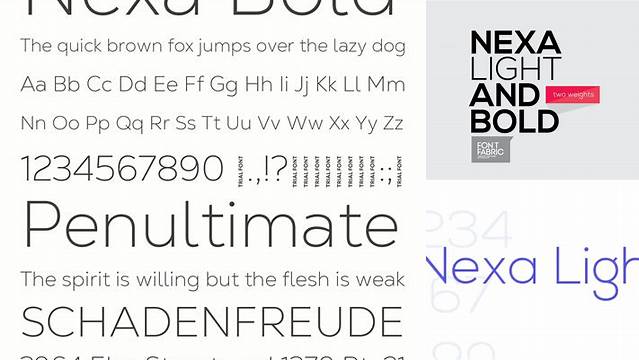
Hey guys! Are you on the hunt for a versatile and modern font to spice up your design projects? Look no further! The Nexa font family, with its clean lines and geometric design, is a fantastic choice for everything from logos and headlines to body text. And the best part? You can find Nexa Light and Bold font free download options online. Let's dive into why this font is so awesome and where you can snag it without breaking the bank.
Nexa Font Family: A Quick Overview
The Nexa font family is a geometric sans-serif typeface known for its readability and contemporary feel. It comes in a variety of weights, from the delicate Light to the impactful Bold (and even Extra Bold!), giving you plenty of flexibility for your designs. The clean and minimalist style makes it perfect for a wide range of applications, whether you're working on a website, a brochure, or even a mobile app. With its versatility and modern aesthetic, it's no wonder that Nexa Light and Bold font free download is a popular search term among designers and creatives.
Why Choose Nexa Font?
Before we jump into where to download, let's talk about why you should consider Nexa.
- Versatility: This font works well in a variety of contexts, from headings to body text.
- Readability: Nexa's clean design ensures that your text is easy to read, even at smaller sizes.
- Modern Look: If you're going for a contemporary vibe, Nexa is a great choice.
- Multiple Weights: With various weights available (including Light and Bold, of course!), you can create visual hierarchy and add emphasis to your designs. The Nexa Light and Bold font free download options give you a starting point, but exploring the full family can unlock even more possibilities.
Nexa Light Font: Characteristics and Uses
Let's kick things off by diving deeper into the Nexa Light font. This particular weight is known for its delicate and airy appearance, making it a fantastic option for projects where you want to convey a sense of elegance and sophistication. When we talk about Nexa Light font free download, we're often referring to a version that's ideal for lighter applications, think branding projects or websites that want a minimalist feel. It is a great choice for body text in designs where you want to avoid a heavy or cluttered look. Imagine using Nexa Light for the text on a clean, modern website – it would blend seamlessly with the design while remaining easy to read. You might also see it used in invitations, brochures, or even logos for businesses that want to project a refined image. Furthermore, the Nexa Light weight is excellent for adding contrast when paired with bolder fonts within the same family, like Nexa Bold. This contrast helps create visual hierarchy and draws the reader's eye to important information. When searching for a Nexa Light font free download, make sure to check the license to ensure it fits your project’s needs, whether it’s for personal or commercial use. Using Nexa Light effectively can elevate your design projects, adding a touch of modern sophistication without overwhelming the overall aesthetic. Remember, a clean and legible font is key to communicating your message effectively, and Nexa Light excels in this regard. It's no wonder designers often seek a Nexa Light font free download option to incorporate this versatile typeface into their toolkit.
Nexa Bold Font: Impact and Applications
On the flip side, we have the Nexa Bold font, which is all about making a statement. This weight commands attention and is perfect for headlines, titles, and any other text you want to stand out. When you need to convey strength, confidence, or simply draw the reader’s eye, Nexa Bold is your go-to. The search for a Nexa Light and Bold font free download often leads to designers who need a powerful combination for different parts of their project. Think about using Nexa Bold for the main headings on a website or in a presentation – it will immediately grab attention and set a strong tone. You might also see it used in logos, posters, and advertising materials where a bold and modern look is desired. Nexa Bold also pairs beautifully with lighter weights like Nexa Light, creating a dynamic contrast that enhances readability and visual appeal. This combination allows designers to create a clear hierarchy, guiding the reader through the content in a structured way. When looking for a Nexa Bold font free download, it’s crucial to ensure you are getting a legitimate version with the appropriate license for your intended use. Always check the terms to avoid any legal issues, especially if you plan to use the font commercially. Overall, Nexa Bold is an indispensable tool in any designer's arsenal, providing the weight and presence needed to make a lasting impression. Its bold, clean lines make it a versatile choice for a wide range of applications, from digital to print.
Nexa Light and Bold Combination: Best Practices
The real magic happens when you combine Nexa Light and Bold fonts. This pairing offers a fantastic way to create visual hierarchy and balance in your designs. By using Nexa Bold for headings and titles, and Nexa Light for body text, you can guide the reader’s eye and make your content more engaging. This contrast is key to good typography, as it helps to distinguish important information from supporting details. When you search for a Nexa Light and Bold font free download, you're essentially looking for a dynamic duo that can handle the heavy lifting of your design. For instance, imagine a website with bold Nexa Bold headings that clearly announce each section, followed by clean and readable Nexa Light paragraphs. This structure not only looks professional but also enhances the user experience by making the content easier to scan and digest. The combination is also effective in print materials such as brochures and posters, where you need to convey information quickly and effectively. Moreover, consider using Nexa Bold for call-to-actions or key phrases within your Nexa Light body text to highlight essential information. This technique adds emphasis and helps to direct the reader’s attention to the most important points. When using Nexa Light and Bold together, pay attention to the spacing and alignment to ensure a cohesive and balanced design. A well-executed combination of these fonts can elevate your project, adding a touch of modern sophistication while maintaining readability and clarity. In short, Nexa Light and Bold work together harmoniously, making the search for a Nexa Light and Bold font free download a worthwhile endeavor for any designer.
Nexa Font and Kerning: Getting the Spacing Right
Kerning, my friends, is the secret sauce to making your typography look polished and professional. It's all about adjusting the spacing between individual letters to create a visually pleasing and balanced appearance. Even the most beautiful font, like Nexa, can look a little wonky if the kerning isn't right. So, let's dive into why kerning is important and how to get it right with Nexa Font. Think of it this way: each letter has its own unique shape, and some letter combinations can create awkward gaps or crowding if the default spacing is used. Kerning is the art of tweaking that spacing to make everything look harmonious. With Nexa, which has a clean and geometric structure, kerning is especially important. Because the letters are so precise, any inconsistencies in spacing will be more noticeable. For example, the space between a capital